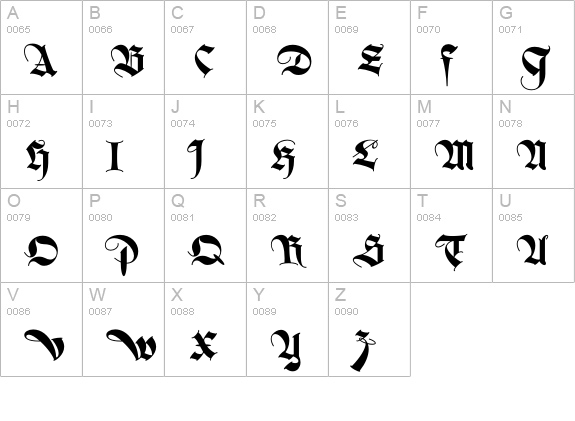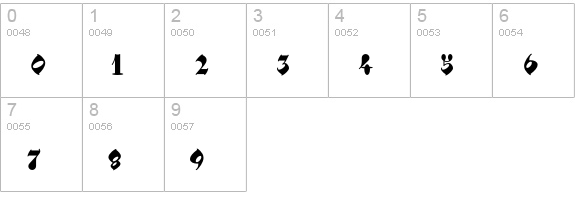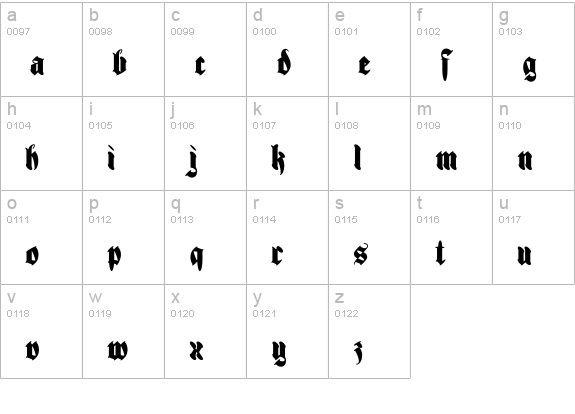
Ferox Font Details
Ferox font is a striking and modern typeface that exudes strength and confidence. With its bold and sharp letterforms, Ferox is perfect for making a bold statement in your designs. Whether you're working on a poster, logo, or branding project, this font will add a touch of fierceness to your work. The best part? Ferox font is free to download at FontsMarket.com! That's right, you can easily access this powerful font without any cost. Don't miss out on adding Ferox to your font collection and elevate your designs with its unique and impactful aesthetic. Download Ferox today and unleash the power of this dynamic typeface in your creative projects!